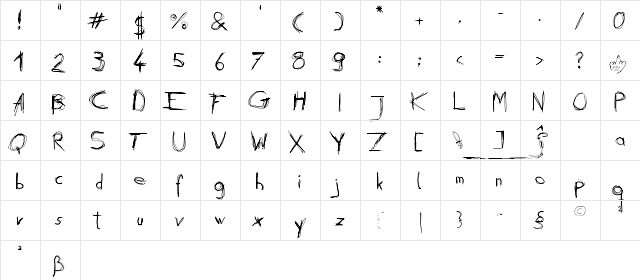
Daubed Regular
| Foundry | Christoph Krling |
Design Context for Daubed Typeface
Daubed is a composed and adaptable typeface that performs quietly and consistently across a wide range of design contexts.